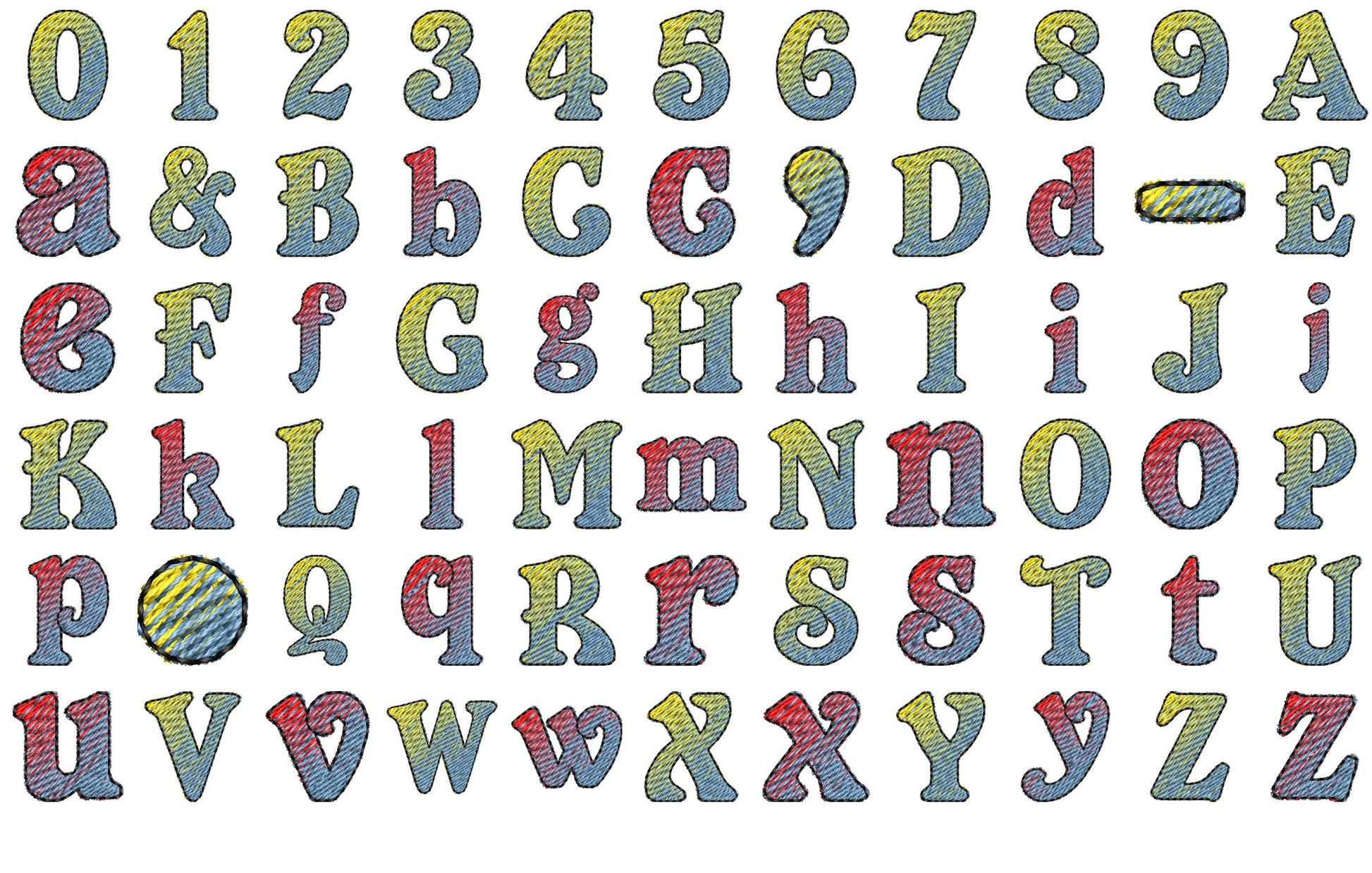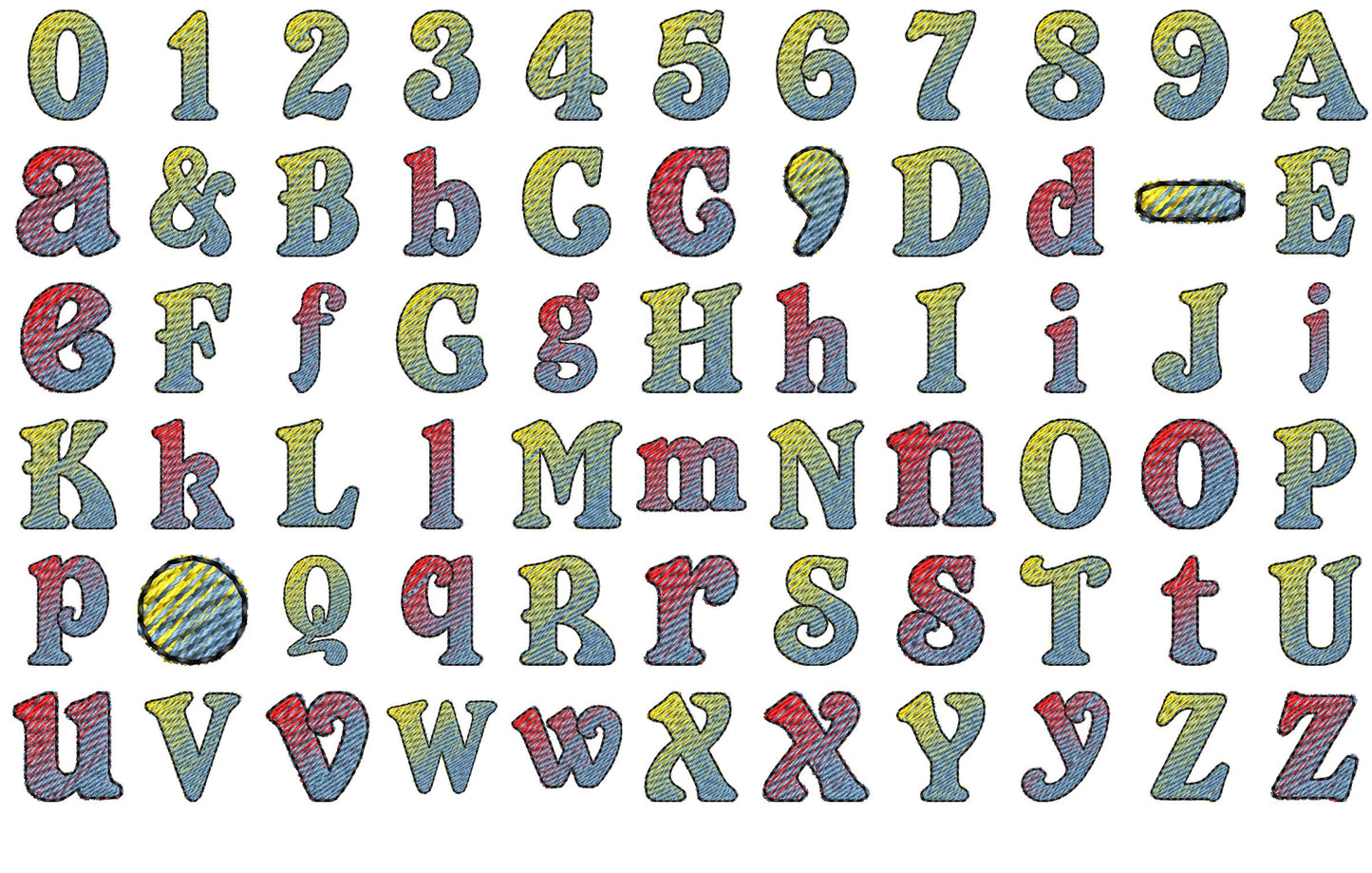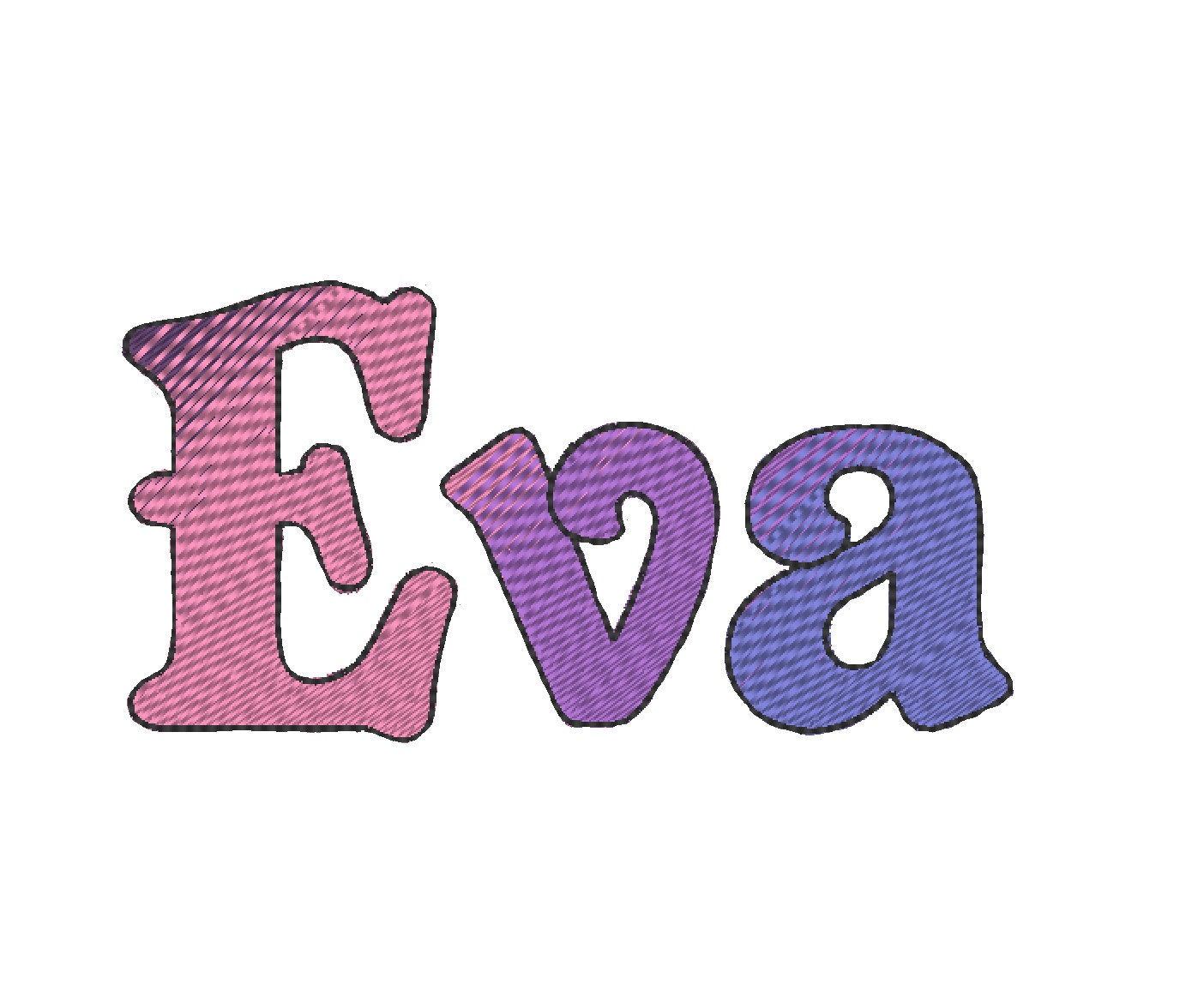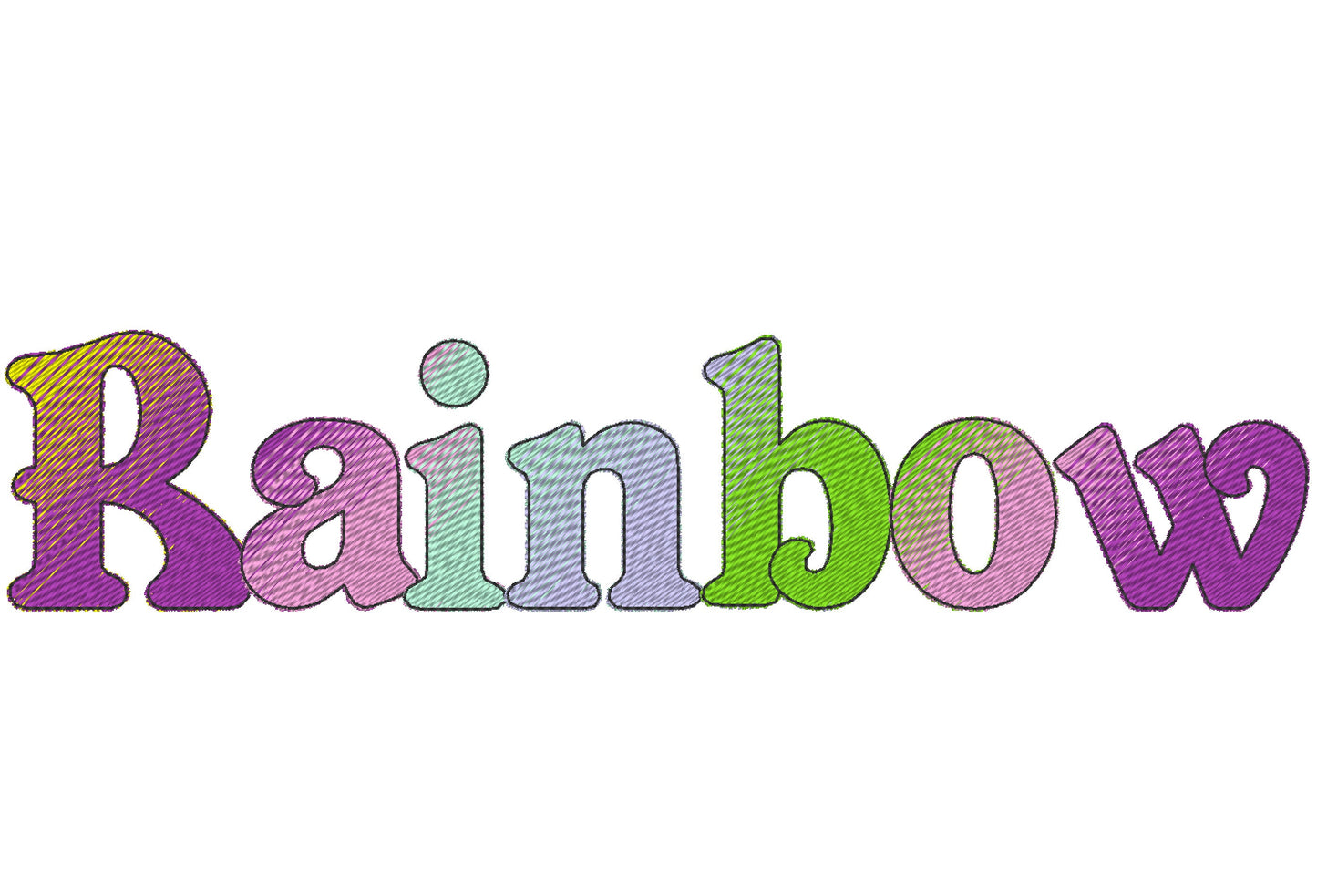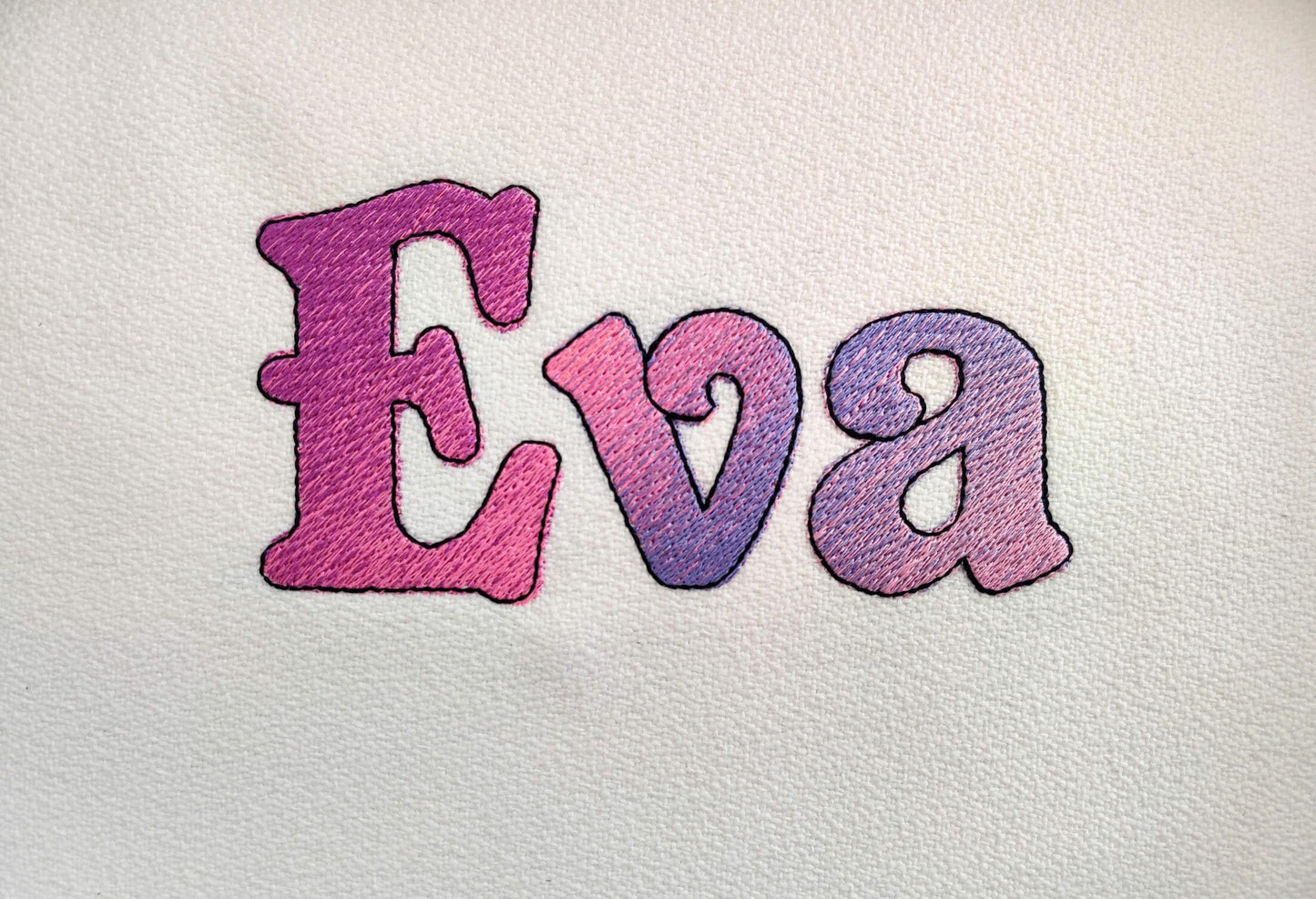
Uppercase and lowercase letters, numbers 0 to 9 and punctuation in seven sizes: 1.2, 1.6, 2, 2.4, 2.8, 3.1 and 3.9 inches. One side of each letter is stitched mostly in one color and the other side in the second, so it shimmers all by itself.